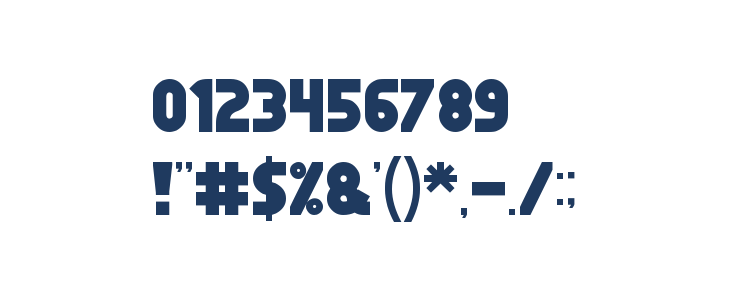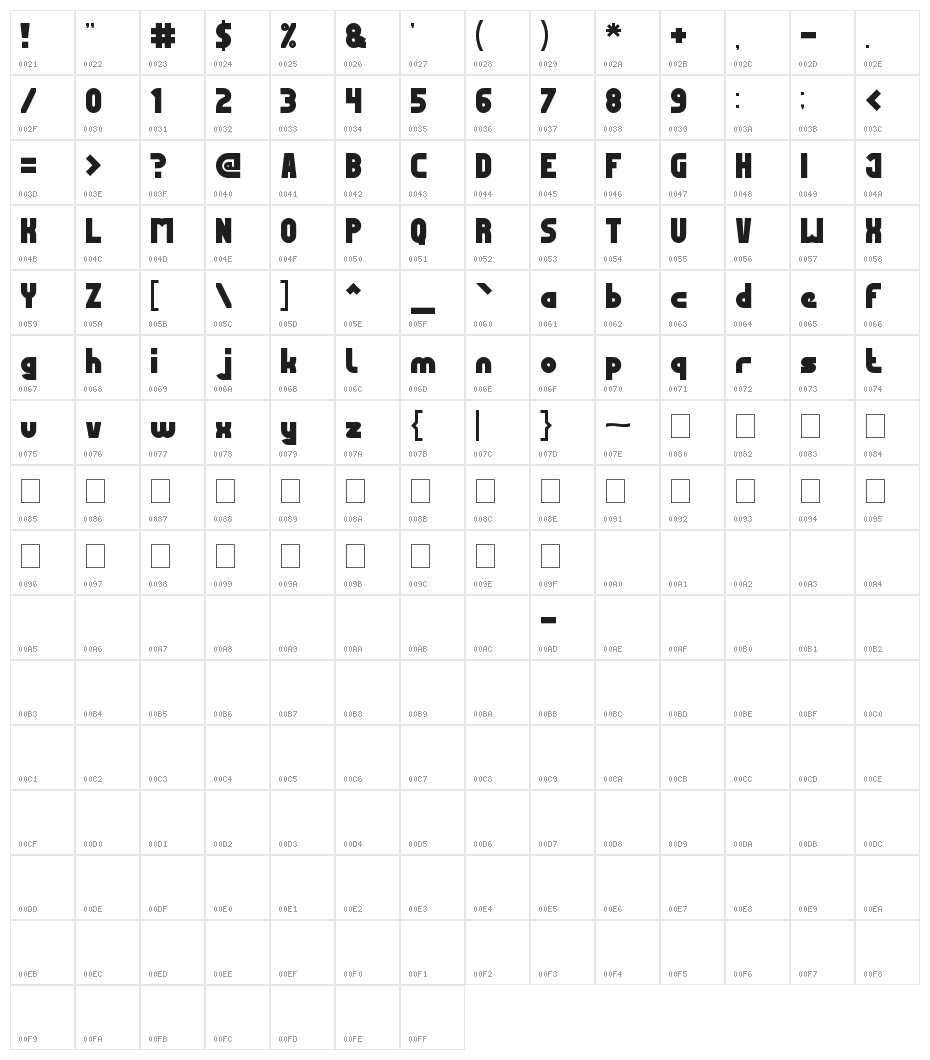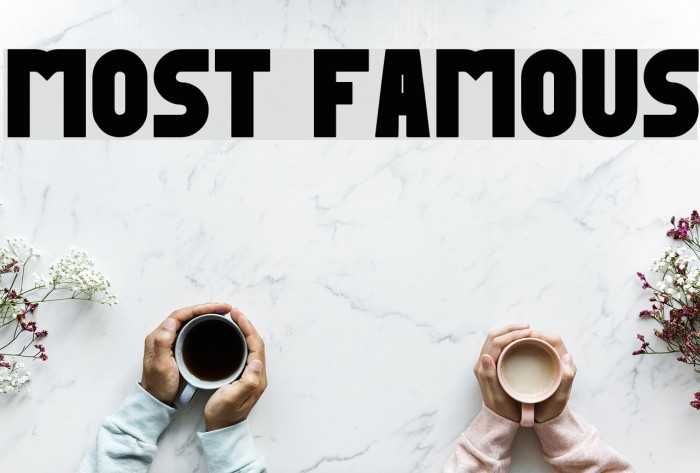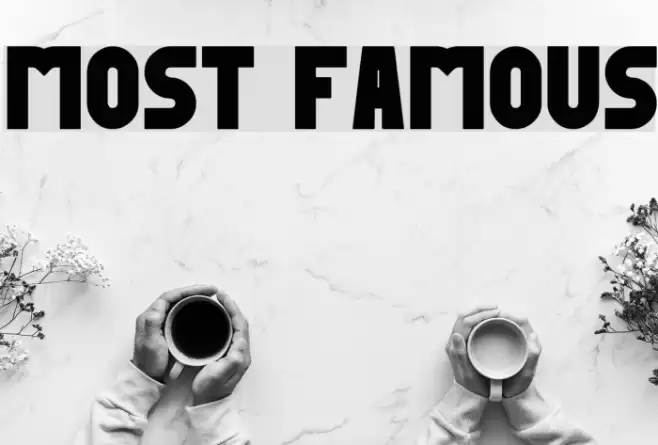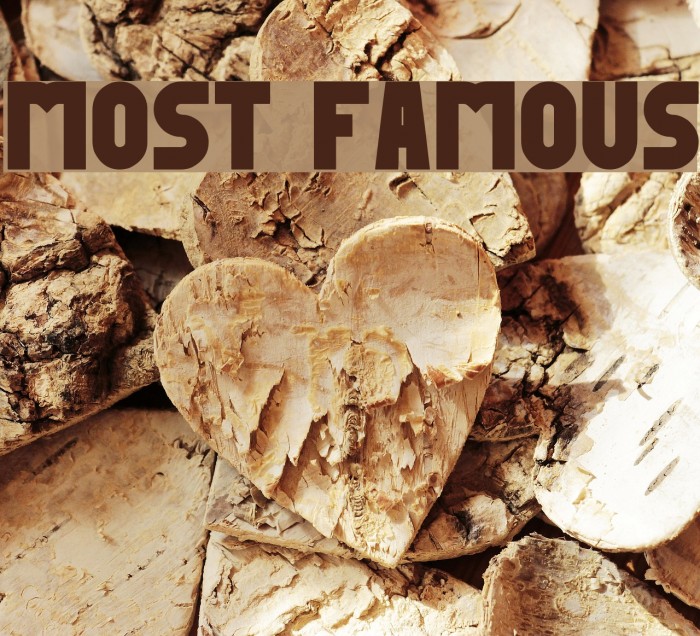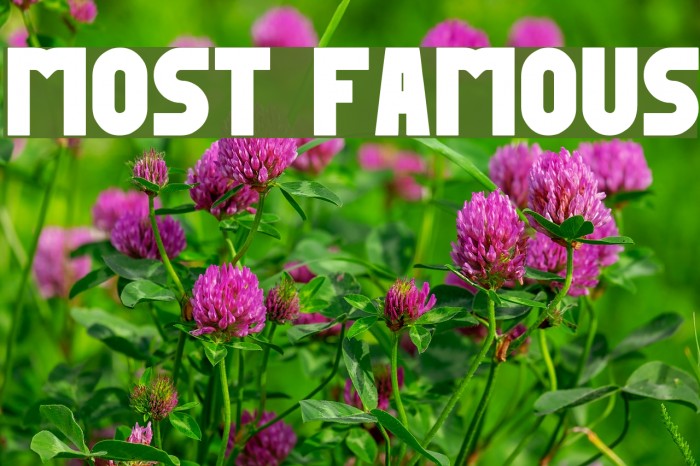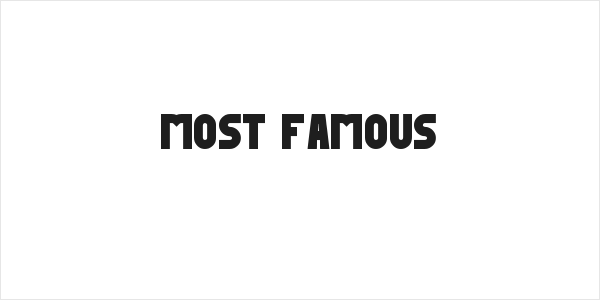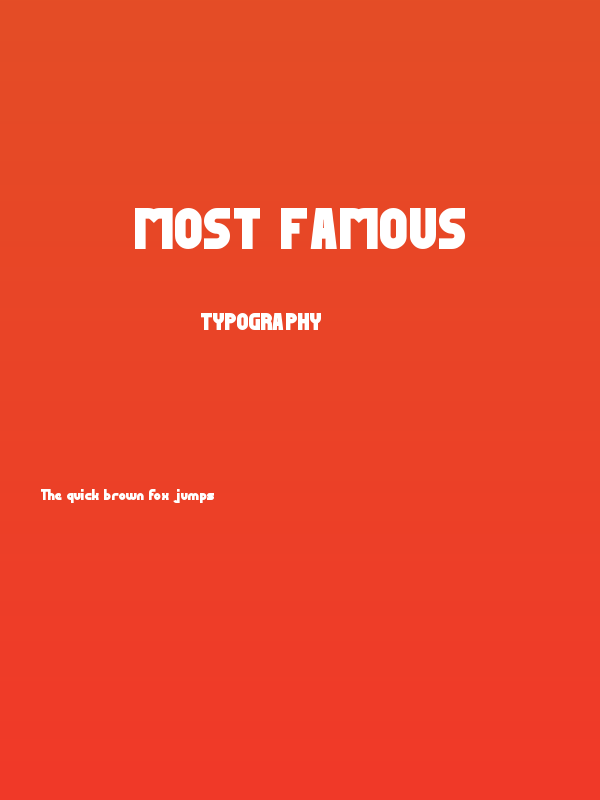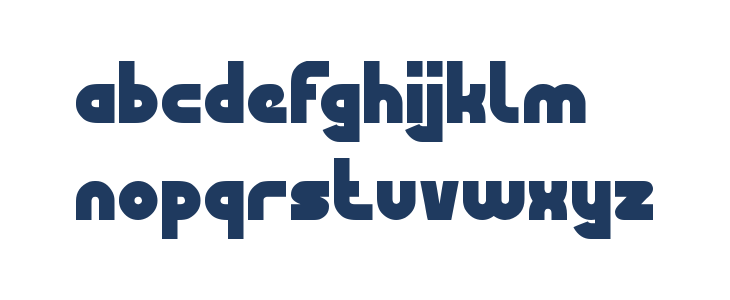
MOST FAMOUS Font
MOST FAMOUS Description
This font features a bold and striking design with thick, block-like characters that convey strength and impact. The uppercase letters are particularly prominent, with a geometric style that emphasizes straight lines and sharp angles. The lowercase letters maintain a similar boldness, with rounded edges that add a touch of softness to the overall appearance. The numerals are consistent with the bold style, ensuring readability and uniformity. Special characters are designed to match the font's robust aesthetic, making them suitable for attention-grabbing headlines or titles. The font's strong presence makes it ideal for projects that require a commanding visual element.